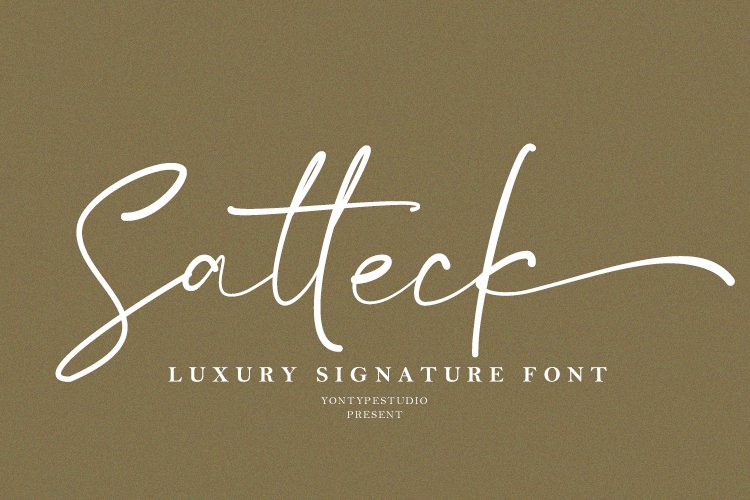
Satteck A Luxury Calligraphy Signature Font
Satteck is a chic modern Calligraphy font with a magical emphasis. I hope this font is perfect for creating a signature logo and watermark for a photography studio or wedding invitation, best for a scratch logo or brand signature.
Satteck includes a complete set of upper and lowercase letters with beautifull handwriting, numbers, various kinds of punctuation marks and ligatures. All lowercase letters include the start and end of the swash, providing a realistic handwriting style. What have you got, honey?